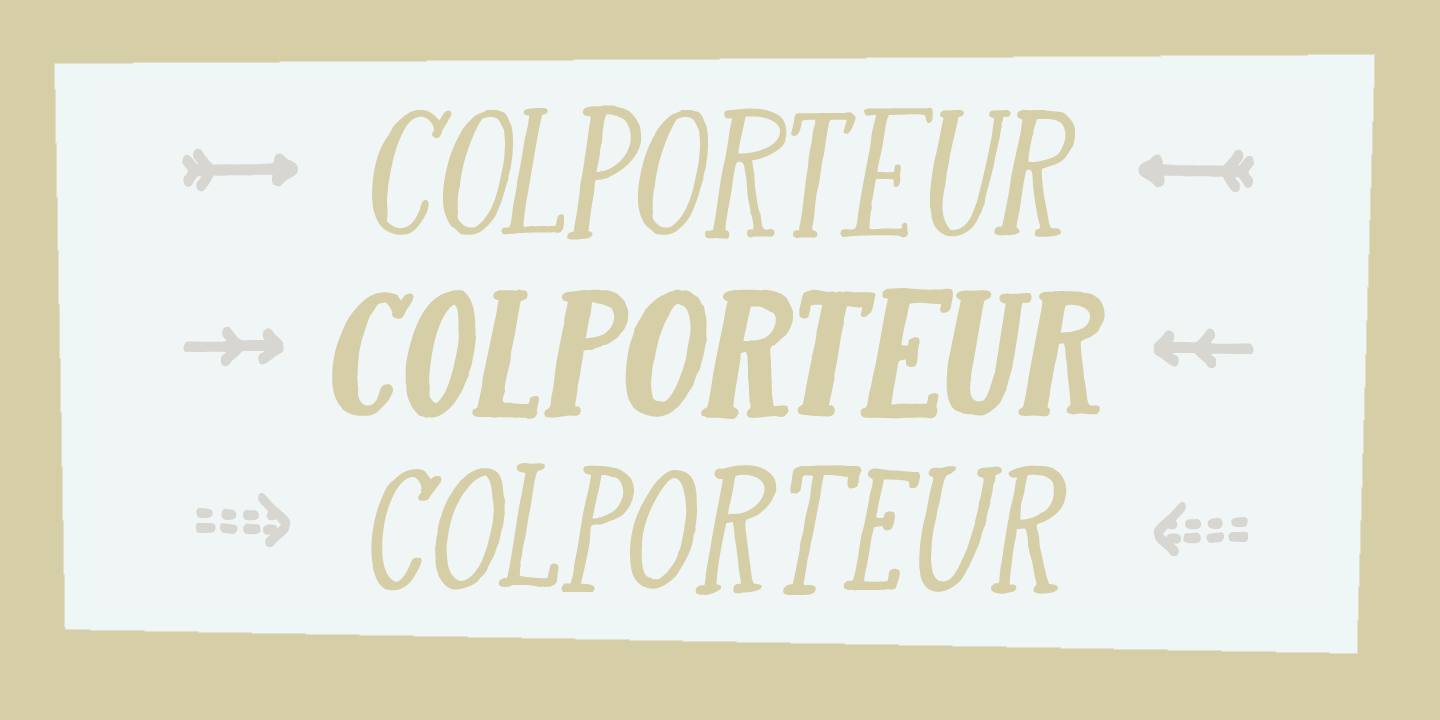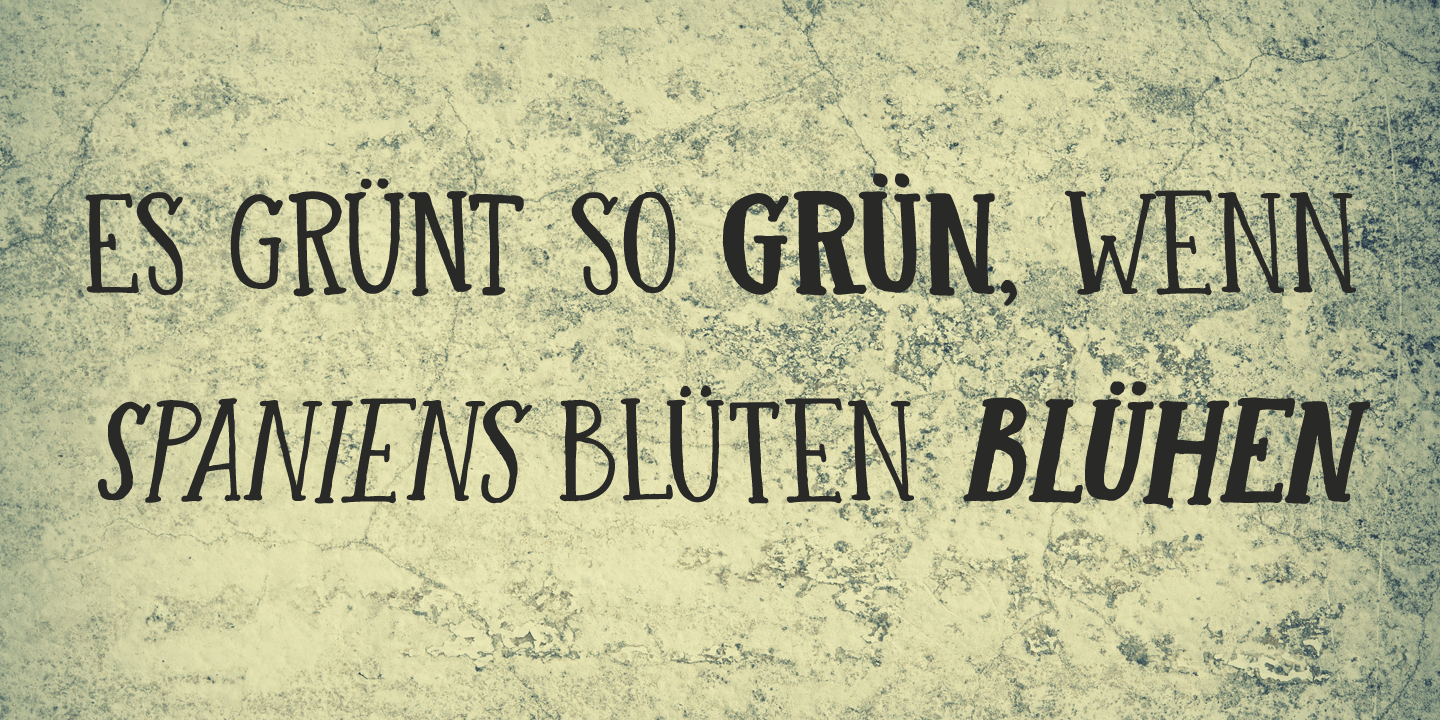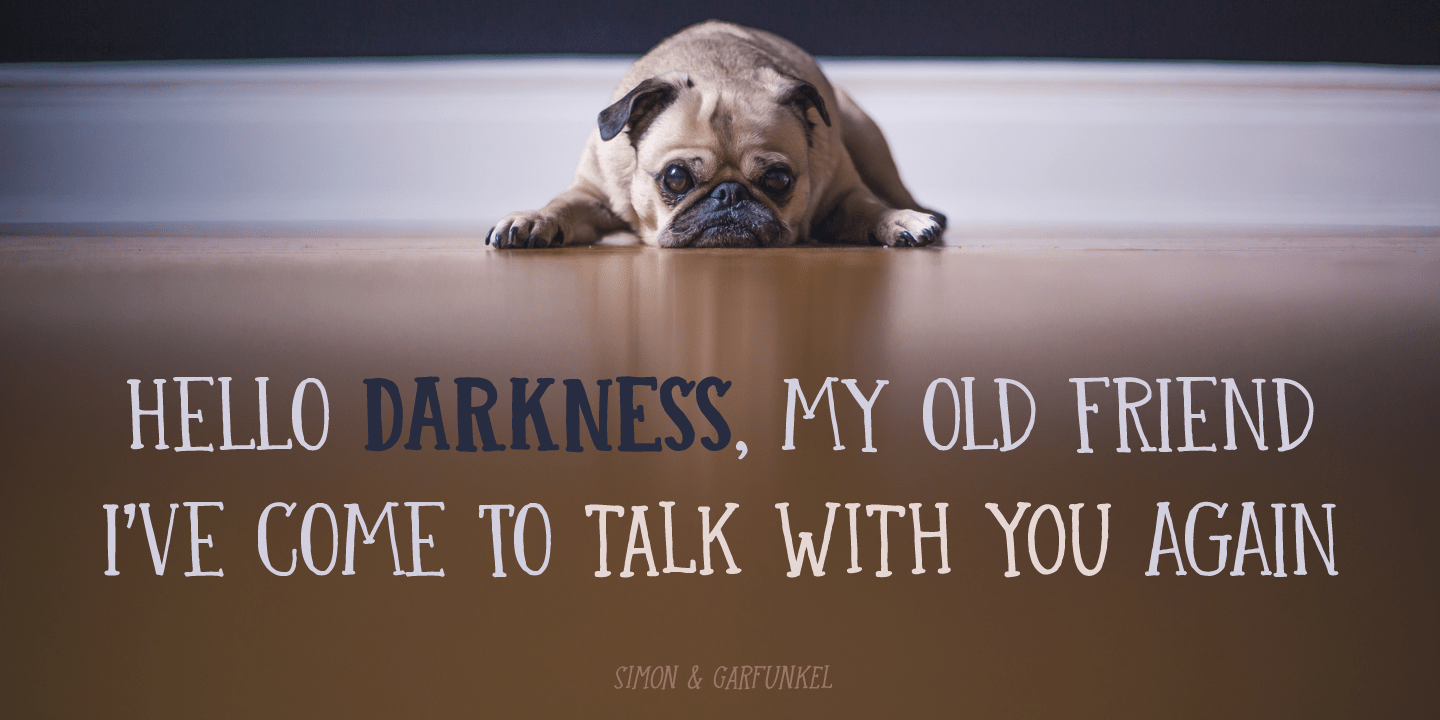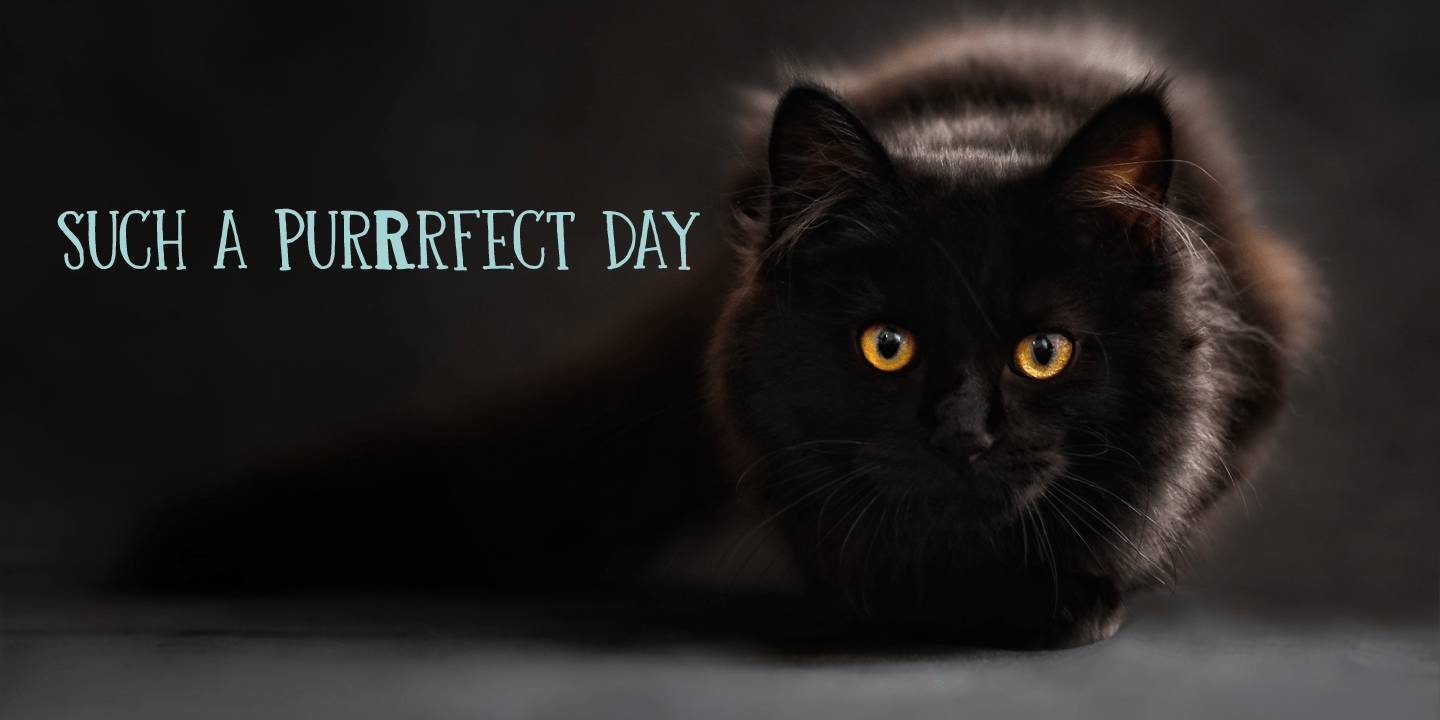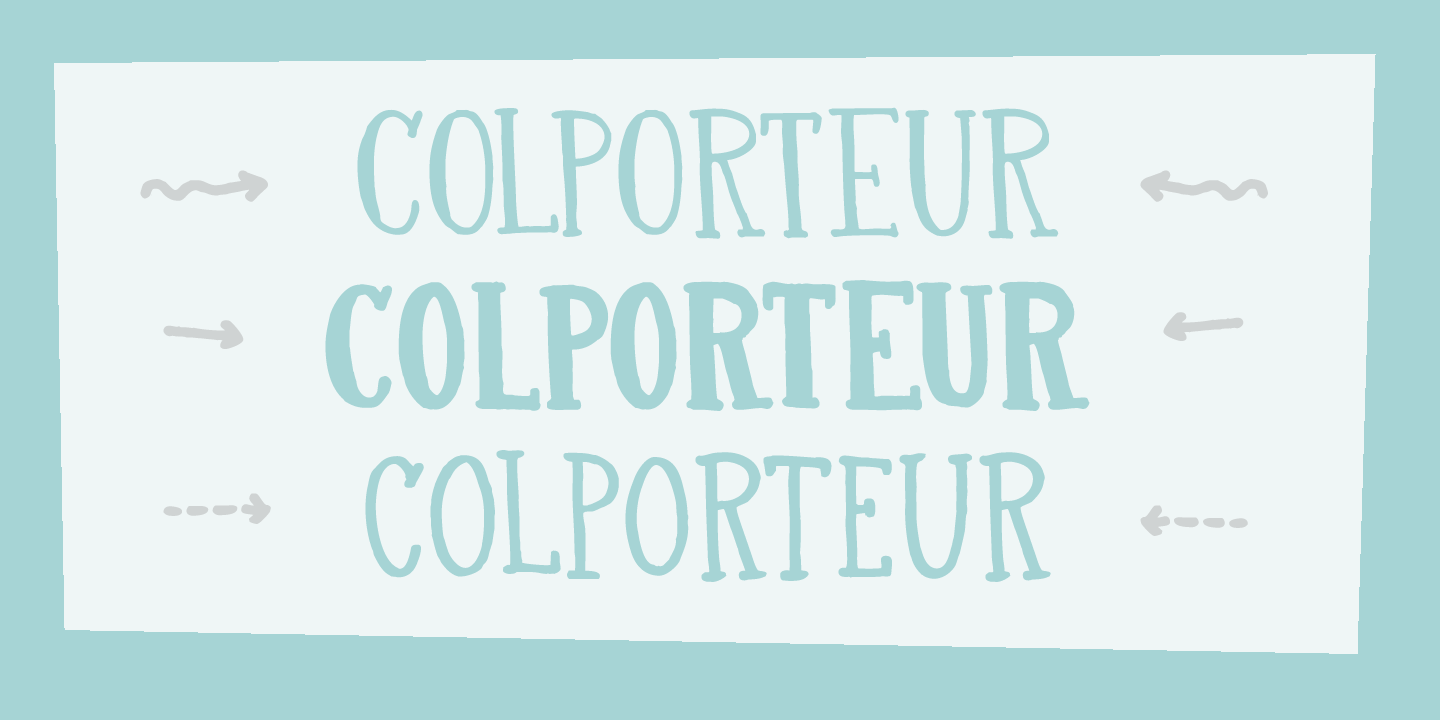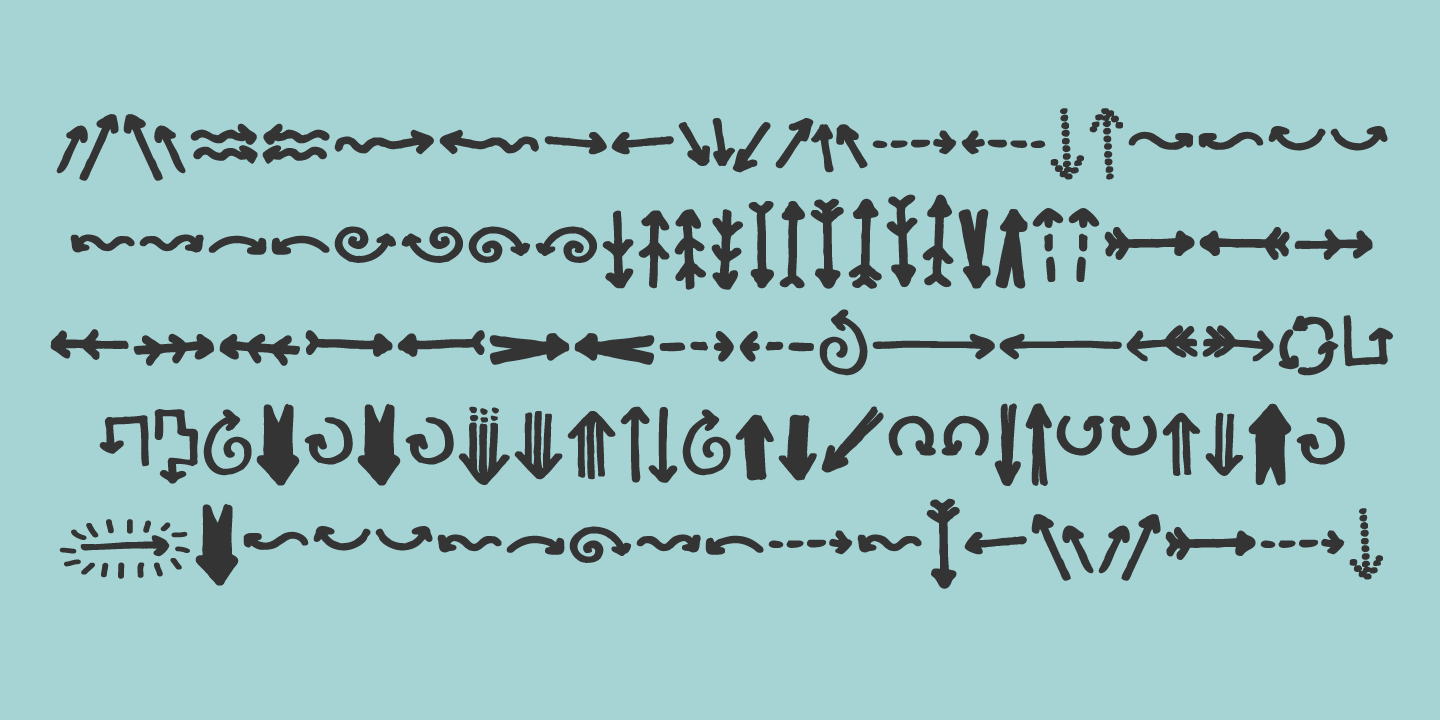
Colporteur
A Colporteur is a peddler of books, newspapers, and similar literature. When I was young, we often got visits from colporteurs - mostly they wanted to sell us a very expensive encyclopaedia. I haven’t seen them for a while - the internet probably killed their trade, as there are numerous free encyclopaedias out there. Colporteur font won’t try to sell you stuff - it basically sells itself. It is a jolly serif family of 6 styles plus a very useful doodle style full of arrows. Use it to sell your encyclopaedia online, write a book and use if for the cover or create a ‘hunt the colporteur’ game.
Comes with an encyclopaedic knowledge of diacritics too!